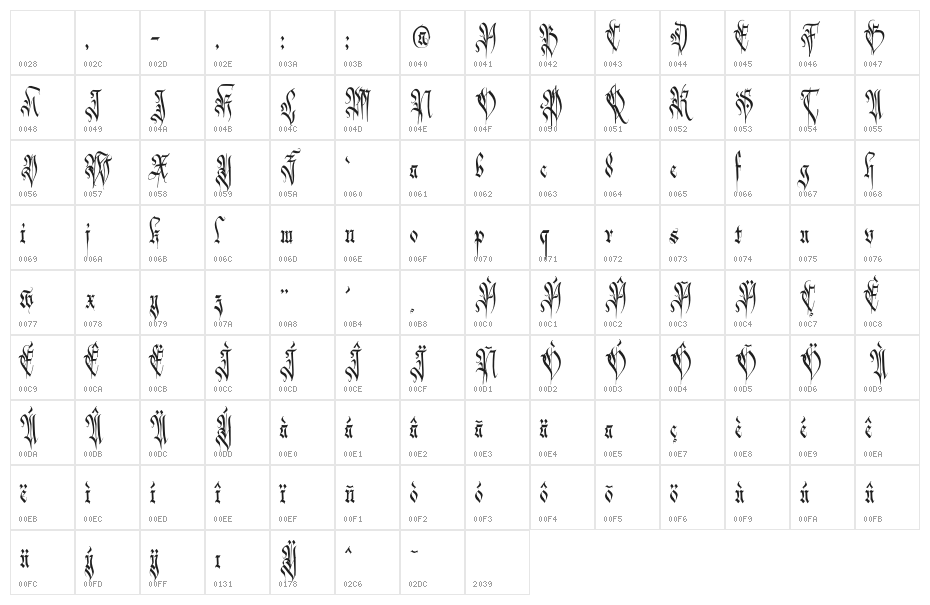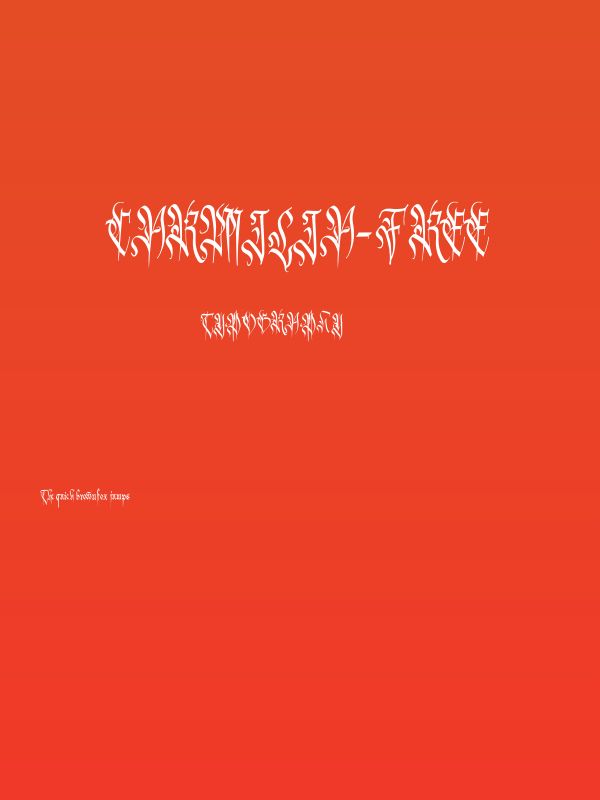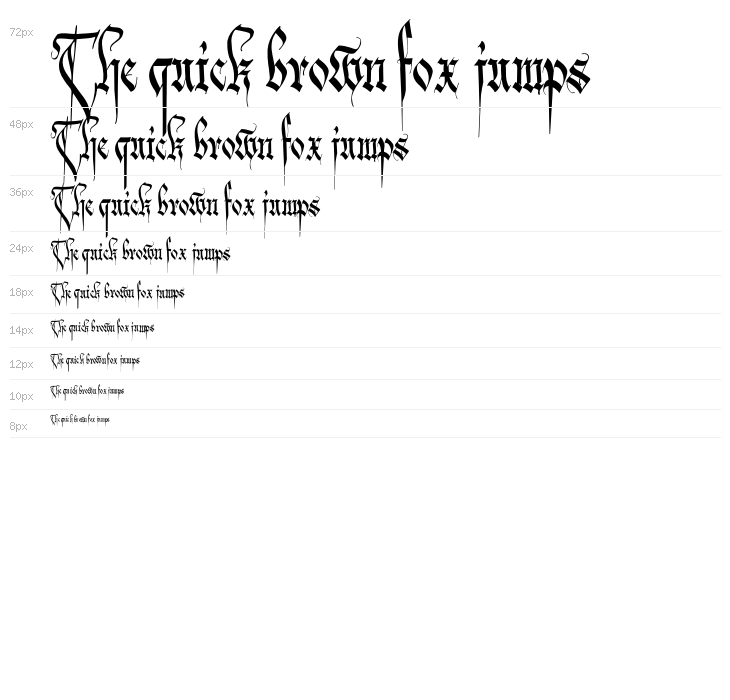
Carmilia-Free Font
Carmilia-Free Description
This font exhibits a striking and intricate design, reminiscent of traditional Blackletter styles. The characters are highly decorative, featuring sharp, angular lines and elaborate flourishes that give it a gothic and medieval appearance. The uppercase letters are particularly ornate, with extended strokes and unique embellishments that make each letter stand out. The lowercase letters maintain the same level of detail, ensuring consistency across the typeface. The numbers and special characters are equally stylized, integrating seamlessly with the overall aesthetic. This font is ideal for projects that require a dramatic and historical touch.
| Overall Style | Gothic, Decorative |
| Proposed Projects | Ideal for tattoo designs, gothic-themed posters, historical event invitations, and book covers. |